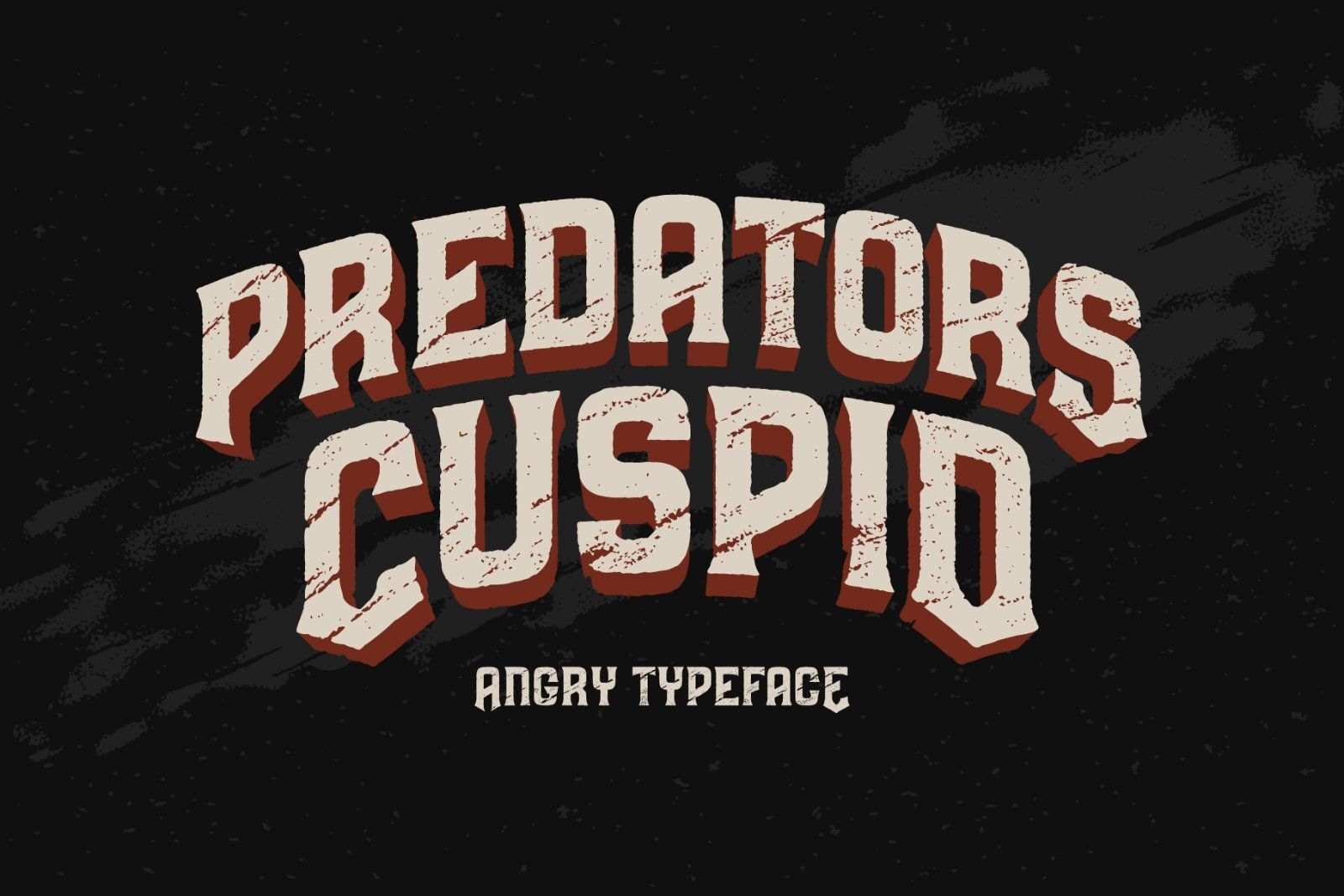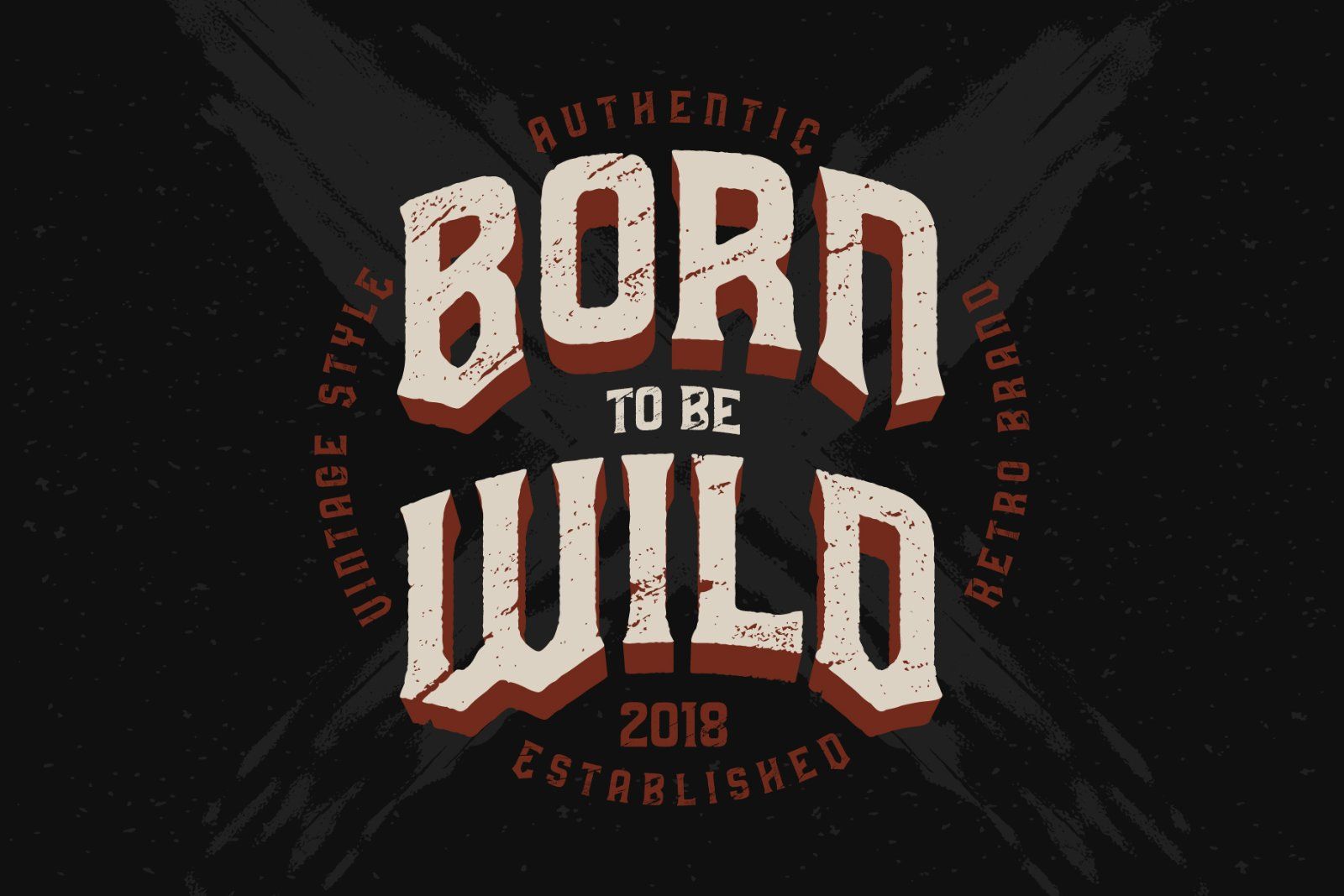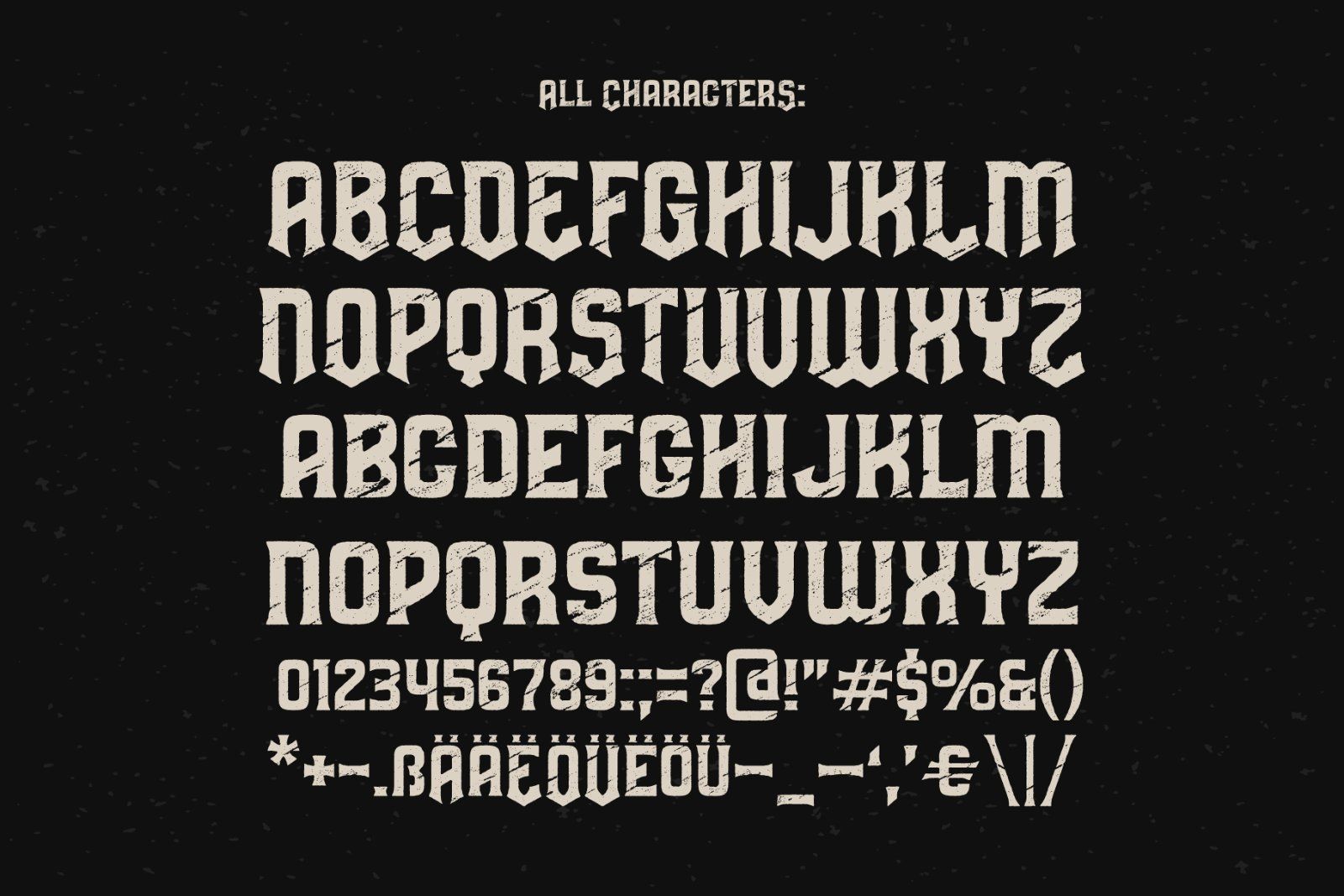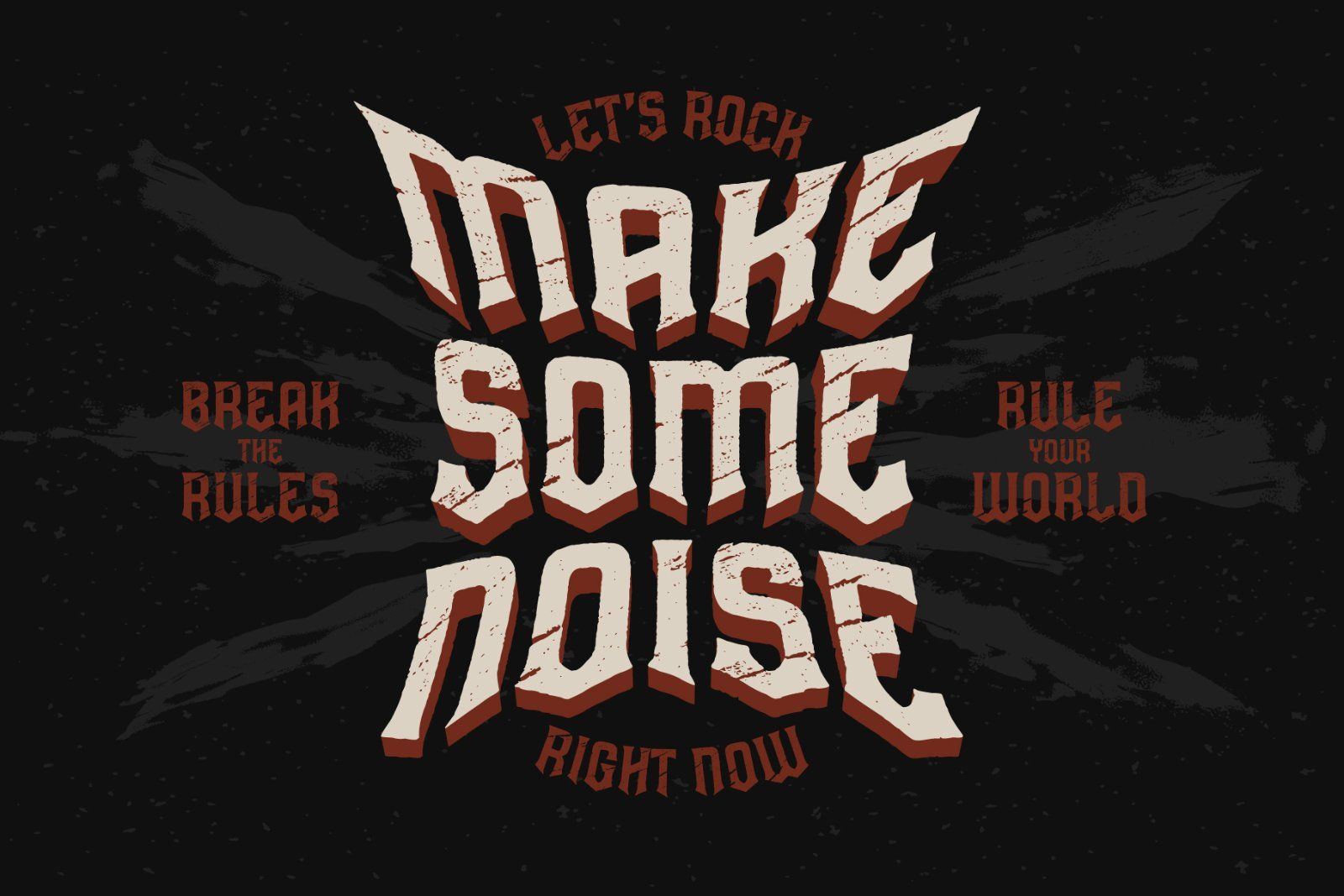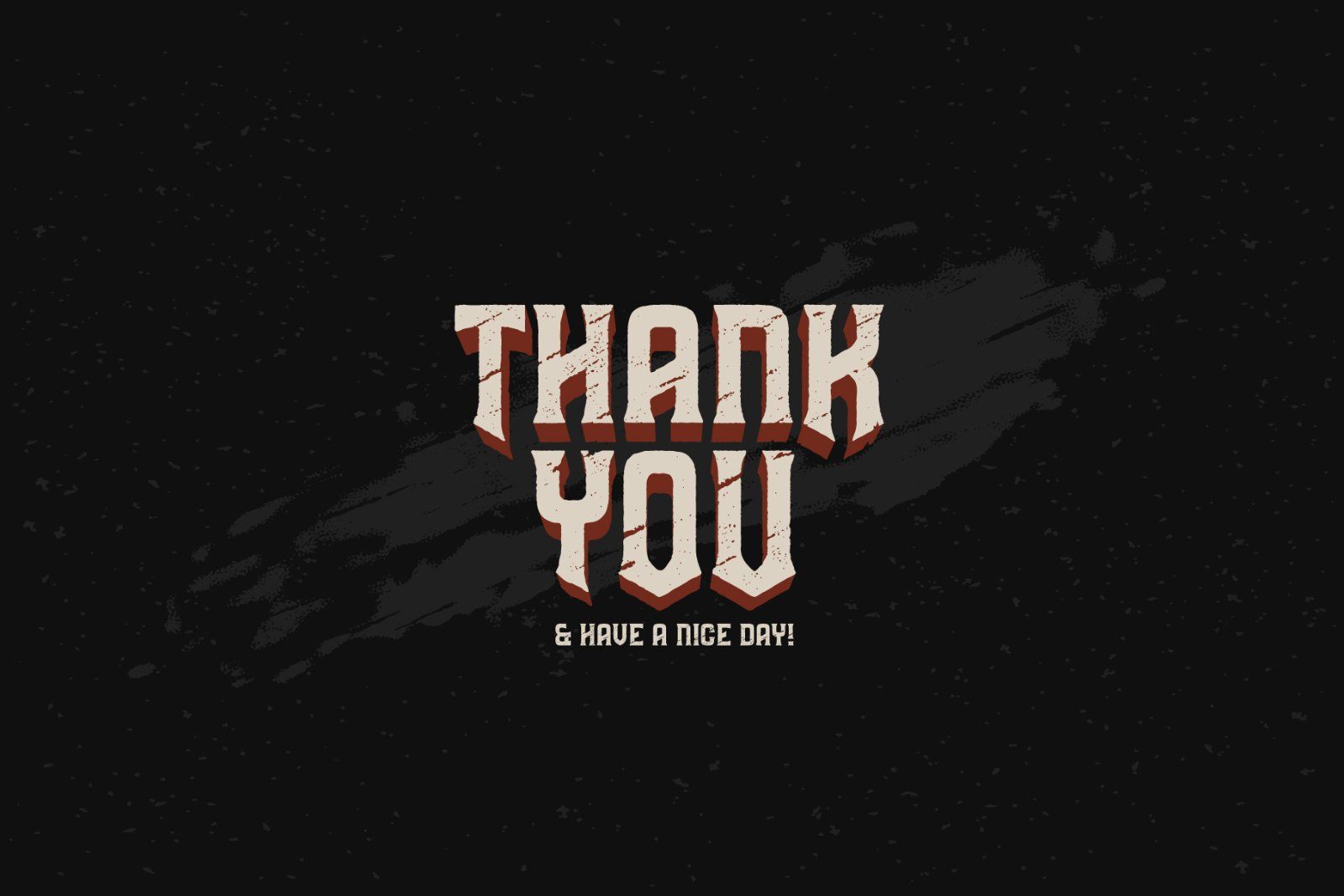
Hi. Introducing a vintage angry look typeface named "Predators Cuspid". It has a grunge scratched texture effect. Protruding "fangs" can be achieved by using a capital letters. As a bonus you will get a lettering posters (2nd & 4th screenshots) in fully editable AI & expanded EPS files.